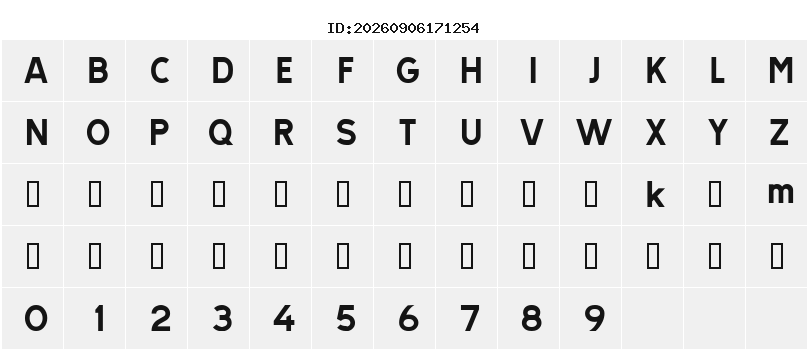
• Font Name: TRATEXNEGVERSAL
• Font Style: NEGVERSAL
• Font ID: Macromedia Fontographer 4.1.5 TRATEXNEGVERSAL NEGVERSAL
• Full Font Name: TRATEXNEGVERSAL NEGVERSAL
• Version: Macromedia Fontographer 4.1.5 02‐01‐22
• PostScript Name: TRATEXNEGVERSAL
• Character Count: 60
About TRATEXNEGVERSAL.ttf
TRATEXNEGVERSAL.ttf is a modern, elegant sans-serif font designed for ultimate readability and visual harmony. Perfect for branding, headlines, web design, and print materials.